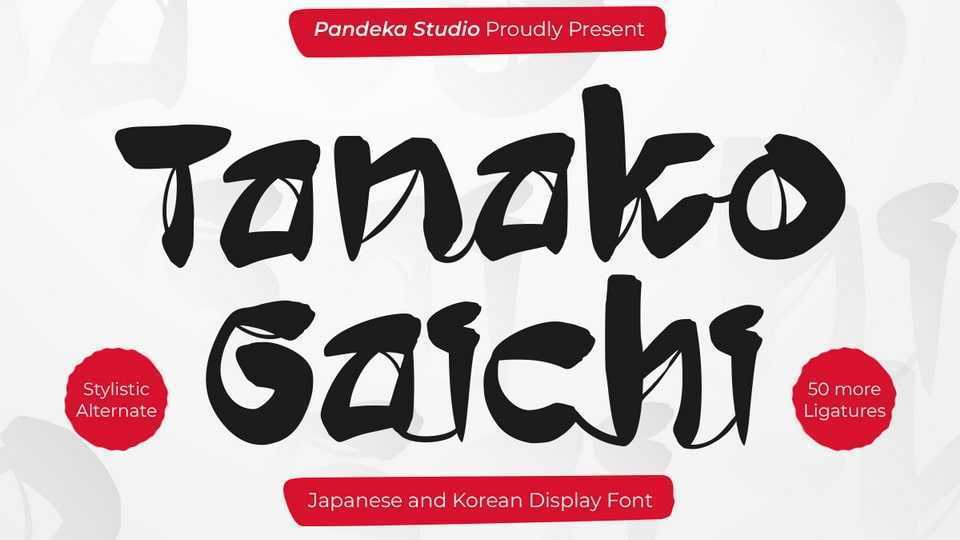
Tanako Gaichi Font › Fontesk – Download Grátis
Download Tanako Gaichi font, a unique hand drawn typeface, perfect to add a bold Japanese and Korean vibe to your designs.